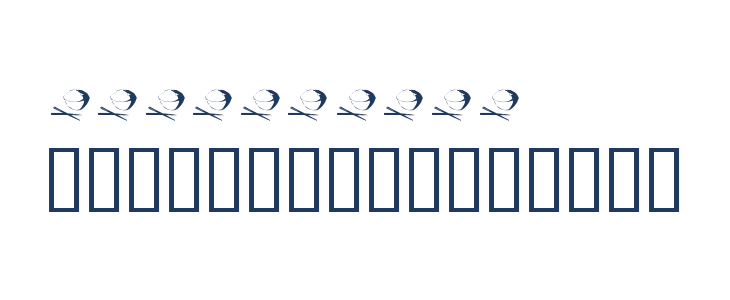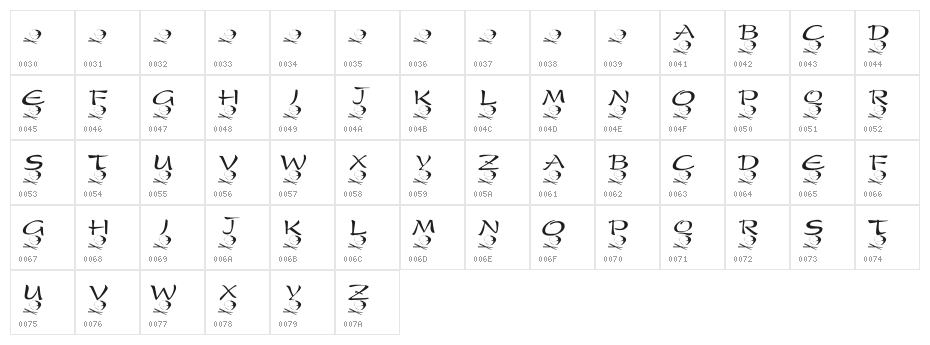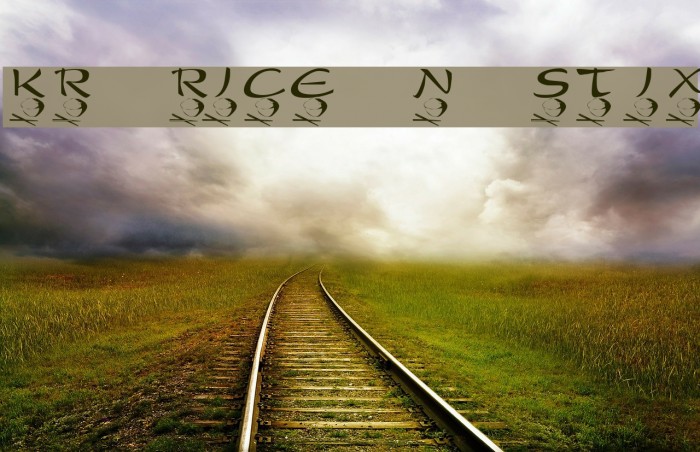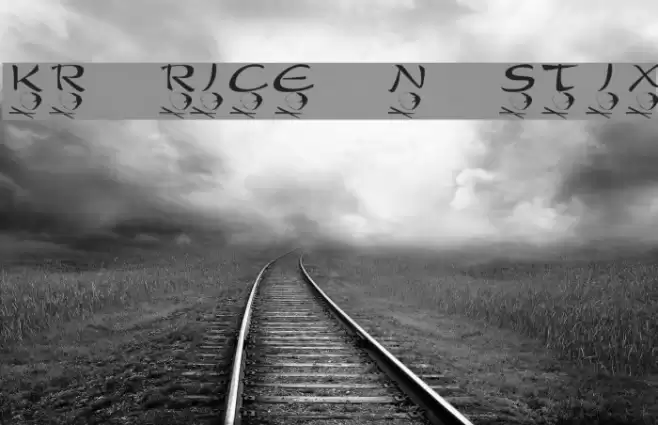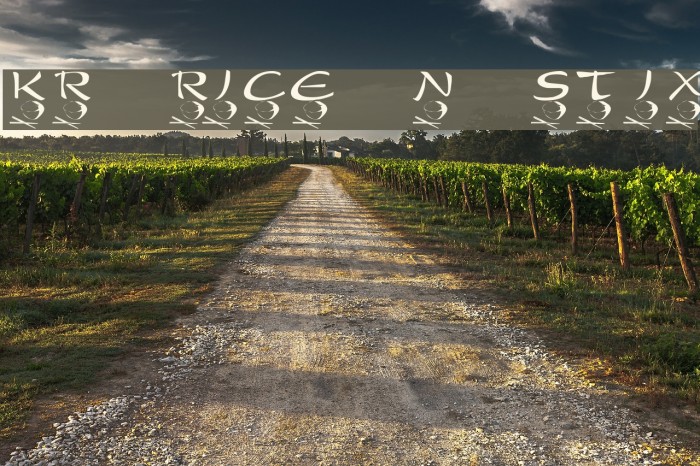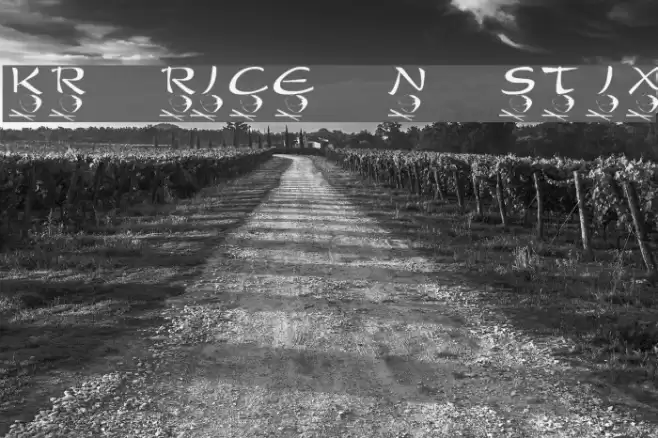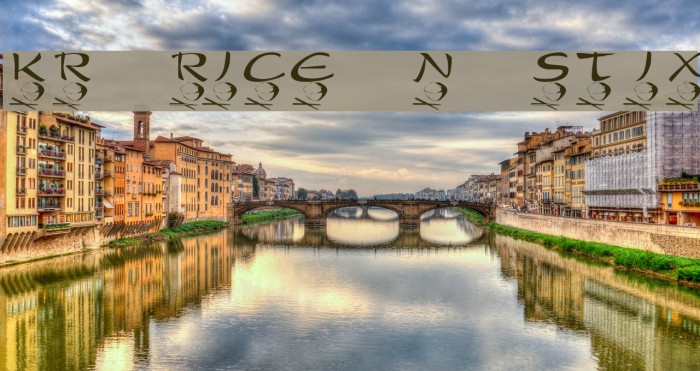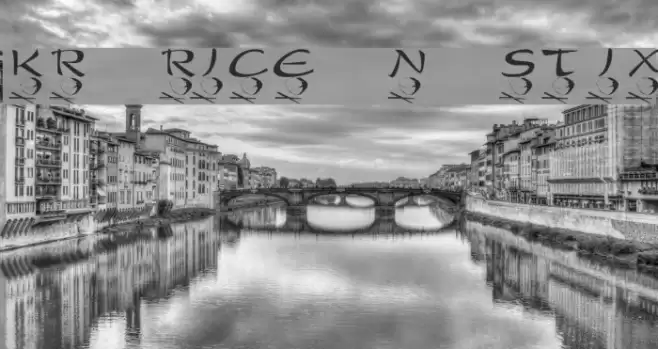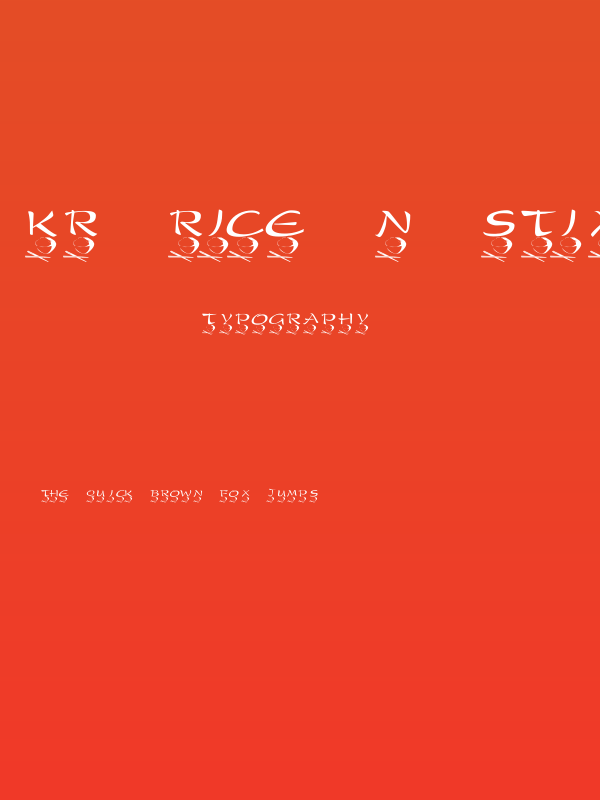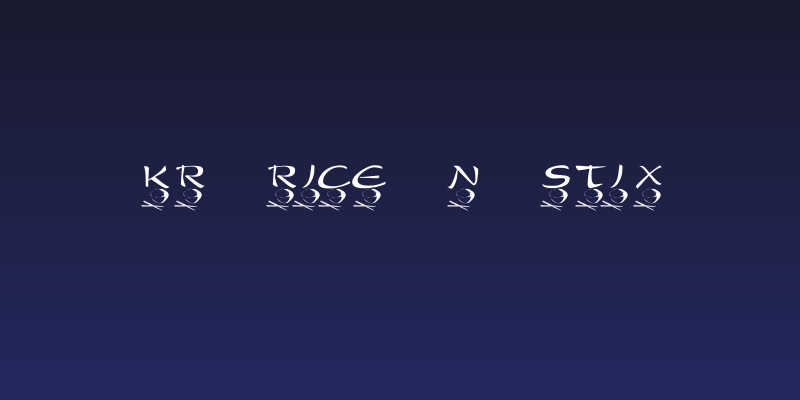
KR Rice N Stix Font
KR Rice N Stix Description
This font features a playful and decorative style, incorporating elements that resemble rice bowls and chopsticks alongside each character. The letters are bold and have a hand-drawn appearance, giving them a unique and artistic flair. The combination of traditional Asian motifs with modern typography creates a distinctive look that stands out. The characters are evenly spaced, and the overall design is both whimsical and culturally inspired, making it suitable for projects that require a touch of creativity and cultural reference.
Proposed ProjectsIdeal for restaurant branding, menu designs, cultural event posters, and creative packaging.